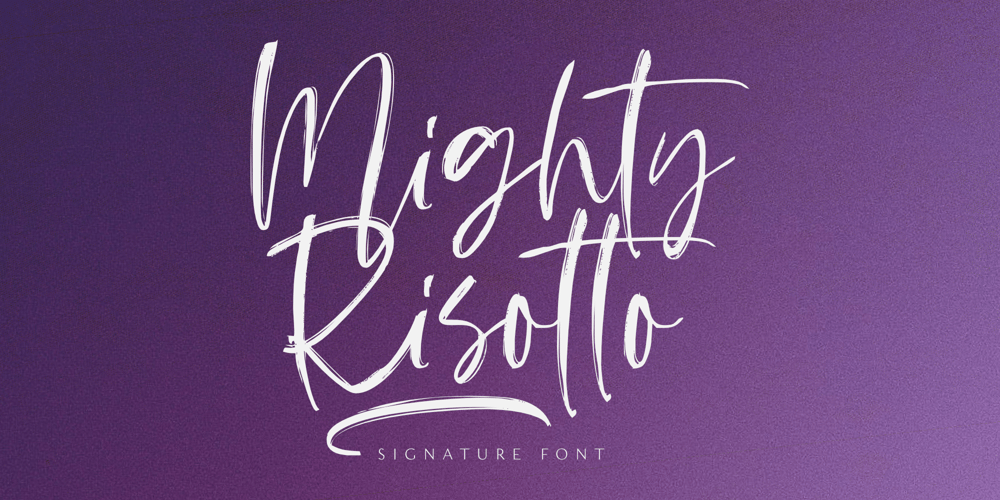
Mighty Risotto
Mighty Risotto font
Mighty Risotto Font Family was designed by Aldy Sidik, Nurul Hidayani and published by Olivetype. Mighty Risotto contains 1 styles and family package options. Hungry for a cool texture script font? You’re in luck! Mighty Risotto is a carefree signature script font with a wide spectrum of applications that gives you just the right feel for all projects. Introduce your new product with a custom logo, or make your next project stand out from the crowd with high-end typography. The possibility is endless.So what’s included : Basic Latin Uppercase and Lowercase Numbers, symbols, and punctuations Ligatures & Under Swashes Multilingual Support. Simple Installations Works on PC & Mac